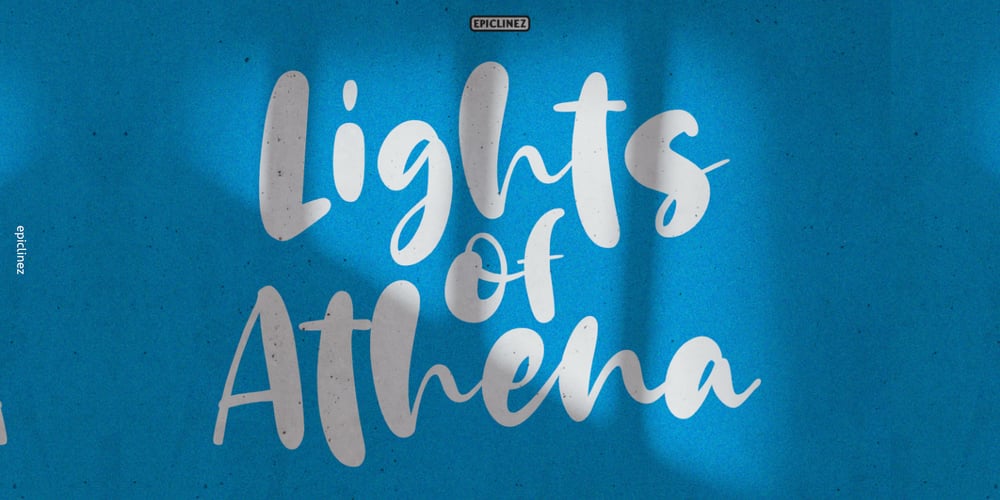
Lights Of Athena Font Family was designed by Aldy Sidik and published by Epiclinez. Lights Of Athena contains 1 styles and family package options. Lights Of Athena is a bold and smooth stylish script font. It’s fun and casual, but demanding attention. Very suitable for headlines, titles, magazines, packaging, branding, apparel, adverts, logos, apps, and more.